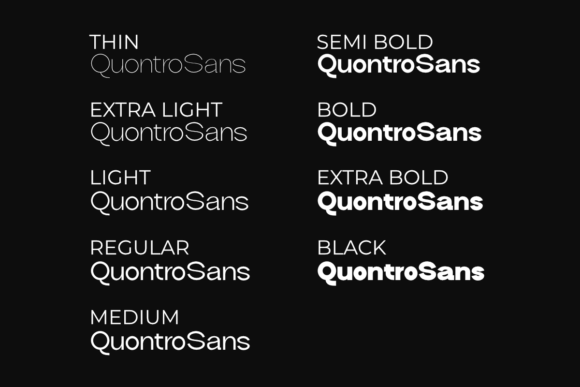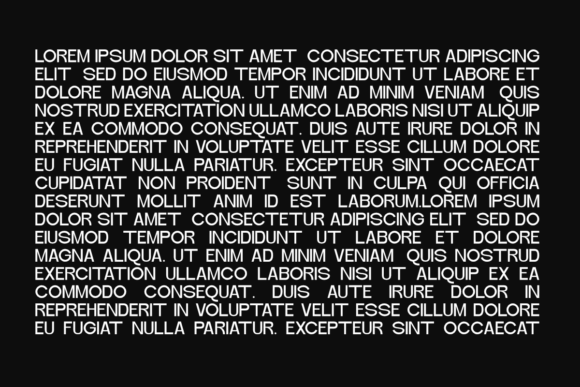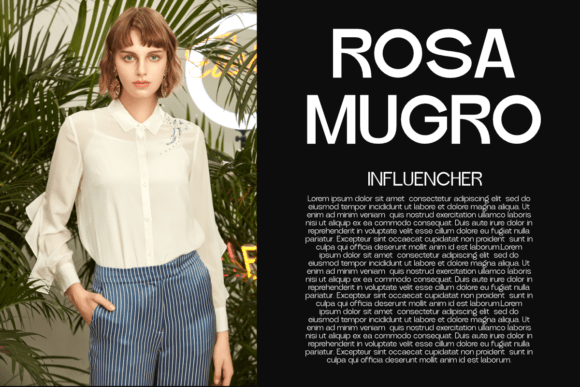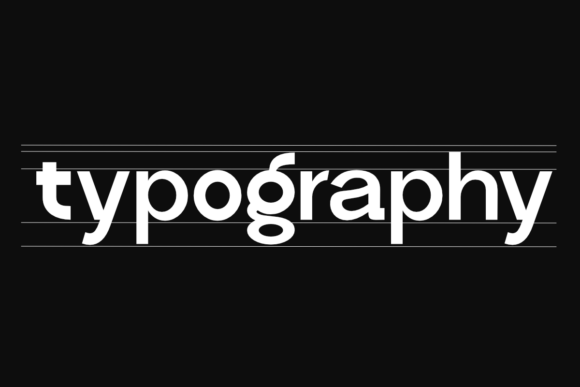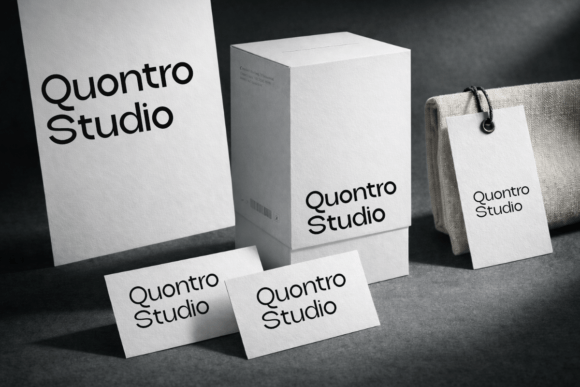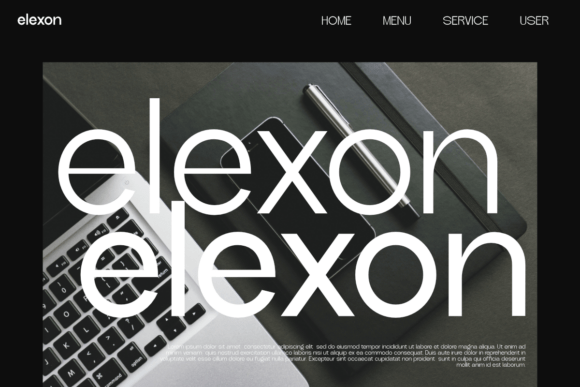
Introduction to Quantro Sans Font
As designers, we’ve all been there – staring at a blank canvas, trying to bring our creative vision to life. But sometimes, it’s not the idea that’s the problem, but the tool we’re using to express it. That’s where a high-quality font like the Quantro Sans Font comes in – a game-changer for designers who crave precision, clarity, and versatility in their work.
With its clean and sophisticated look, Quantro Sans Font is the perfect design resource for any creative project, from logos and posters to websites and corporate branding. Whether you’re working on a digital interface or a print campaign, this font family delivers a timeless modern aesthetic that adapts effortlessly to your needs. And the best part? It’s available for free download, making it an accessible and valuable addition to any designer’s toolkit.
Key Features of Quantro Sans Font
- High-quality design resource for creative projects: The Quantro Sans Font offers a sleek and modern look that is perfect for various design applications.
- Comprehensive character set: The Quantro Sans Font includes a comprehensive character set, including uppercase and lowercase letters, numbers, and punctuation marks.
- Perfect for digital and print projects: The Quantro Sans Font is ideal for use in digital projects, such as websites and social media, as well as print projects, like brochures and business cards.
Honest Review: Quantro Sans Font
I recently came across the Quantro Sans Font, a versatile design resource that caught my attention. As a designer, I’m always on the lookout for high-quality fonts to elevate my creative projects.
One of the standout features of the Quantro Sans Font is its sleek, modern aesthetic. The transparent background and clean lines make it perfect for digital design, from websites to mobile apps.
- ✨ Excellent legibility, making it easy to read even at small sizes
- ✨ Highly customizable, with multiple weights and styles to choose from
- ⚠️ Limited support for certain languages, which may be a concern for designers working on international projects
- ⚠️ Not ideal for print design, as it may not hold up as well in high-resolution formats
Overall, I’m impressed with the Quantro Sans Font. While it may not be perfect, it’s a solid addition to any designer’s toolkit. With its high-quality design and transparent background, it’s a great resource for digital design projects.
Tips for Getting the Most Out of Quantro Sans Font
For a high-quality design, use the Quantro Sans Font in conjunction with a transparent background to create a clean and modern look. This versatile font is a valuable design resource for any creative project.
The Quantro Sans Font is ideal for use in presentations, infographics, and other visual materials where a clear and concise message is essential. It’s also a great choice for free download and use in various design projects, including logos, business cards, and more.
Alternatives to Quantro Sans Font
Montserrat is a high-quality sans-serif font designed for digital use. It features a clean and modern design, perfect for creative projects that require a transparent background. Use Montserrat for titles, headings, and body text in your design.
Compared to Quantro Sans Font, Montserrat has a more geometric and structured feel, making it ideal for digital displays and high-resolution designs.
Open Sans is a popular and highly-regarded sans-serif font, available for free download. It’s designed to be legible at small font sizes and has a clean, friendly feel. Use Open Sans for body text, titles, and headings in your design project.